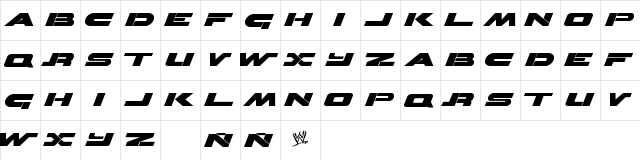
Brawl Regular
Design Context for Brawl Typeface
Brawl is a composed and adaptable typeface that performs quietly and consistently across a wide range of design contexts.